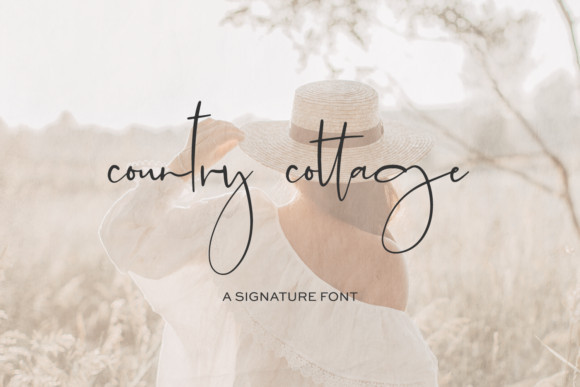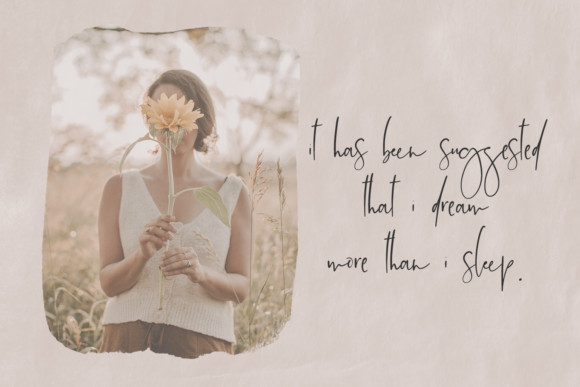
Country Cottage Font
Country Cottage is a stylish and delicate font. It has a clean, thin and smooth vibe and it will be a hit for any design that you want to add it to. This font is PUA encoded which means you can access all of the glyphs and swashes with ease!